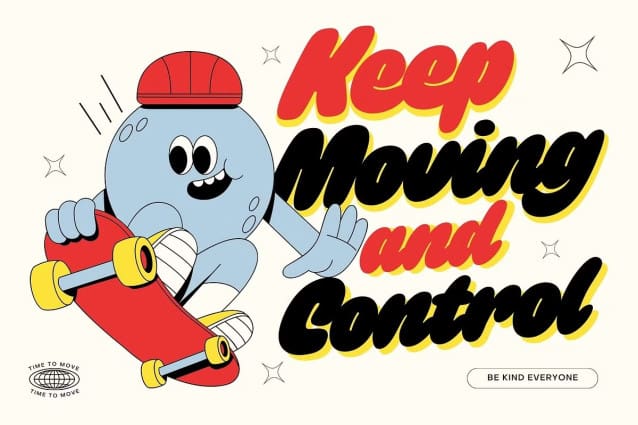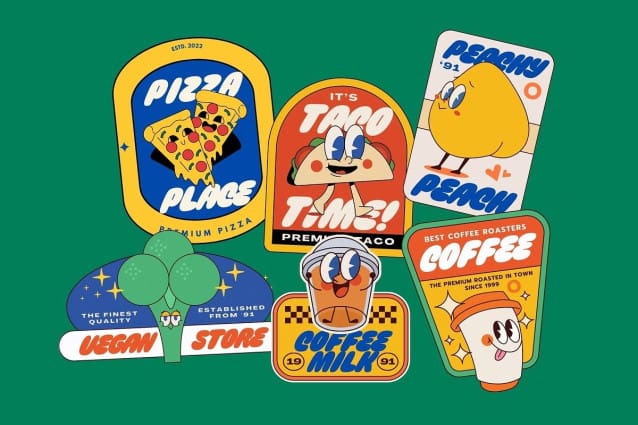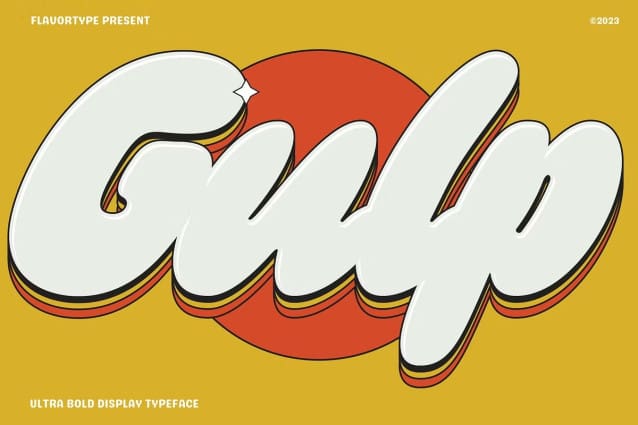
Gulp Display Font
Gulp Display Font, is a playful and fun font inspired by pop art, hippie and comic book styles. It’s groovy, funky and retro with an ultra-bold and fat appearance, making it perfect for eye-catching headers and short word texts.
This font exudes modernity and fanciness, making it ideal for any purpose that requires a dominant and powerful impact. The italic style adds a touch of uniqueness, giving it a playful edge. However, GULP Display is not recommended for long text as it can be overpowering and may detract from the overall readability of your content.